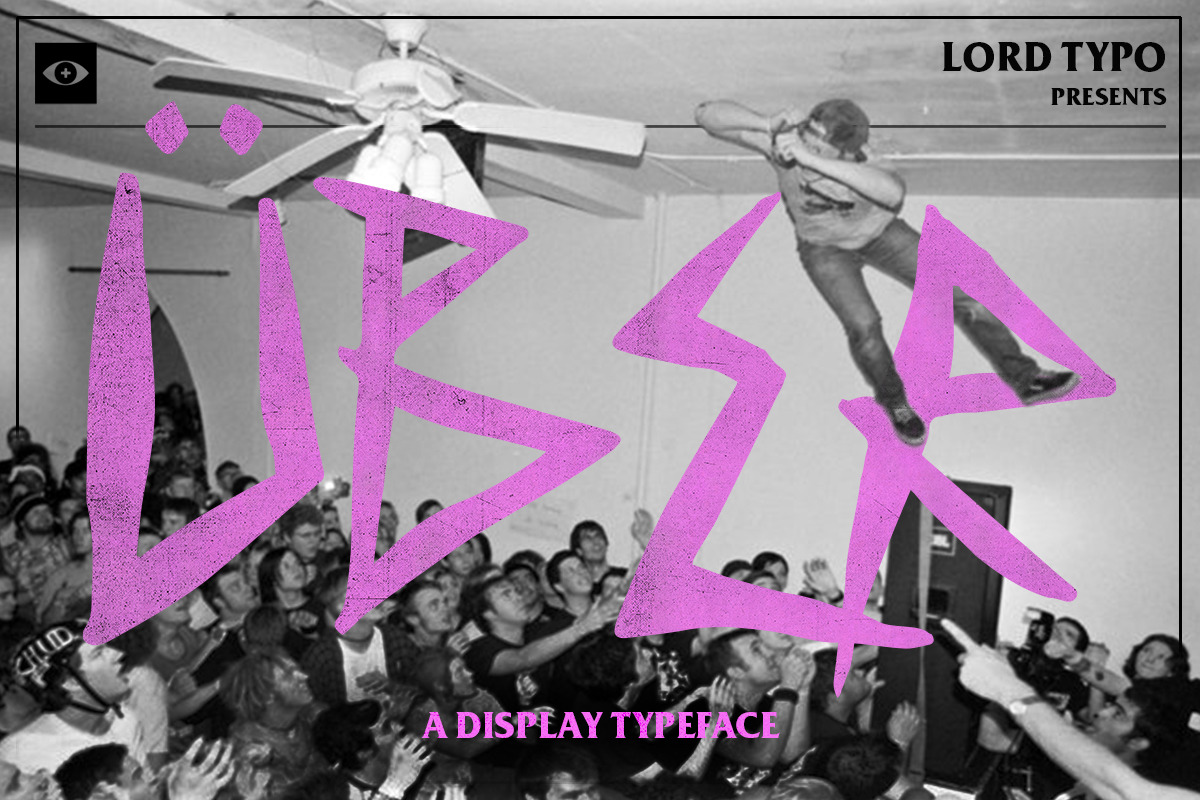
ÜBER — Punk Rock Display Font
Über by Lord Typo is a wild display font inspired by the punk rock flyer posters from the 80's and 90's. Über is versatile and can be used for anything from loud logo design to elegant editorial spreads when paired with conventional serif and sans serif fonts and everything in between.